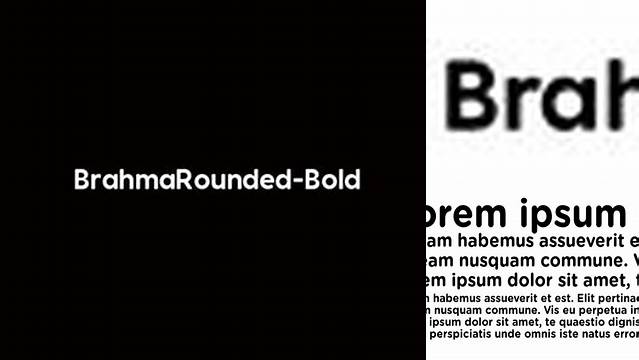
Understanding the Brahma Rounded Semi Bold Font
Alright guys, let's dive into the world of typography and talk about a font that's been making waves: the Brahma Rounded Semi Bold. You've probably seen it around, maybe on a cool website, a striking poster, or even on some slick branding. This font has this awesome, approachable vibe because of its rounded terminals, but it also packs a punch with its semi-bold weight. It’s that perfect blend of friendly and impactful. Think of it as the font equivalent of a warm handshake followed by a confident nod. It’s not too stuffy, not too flimsy – it hits that sweet spot. When designers are looking for a typeface that can be both legible from a distance and have a distinct personality up close, Brahma Rounded Semi Bold often comes to the rescue. Its semi-bold nature means it stands out without being overly aggressive, making it super versatile for a wide range of applications. Whether you're crafting a blog post, designing a social media graphic, or even working on a print advertisement, this font can bring a unique flavor to your project. It’s the kind of font that doesn't just fill space; it actively contributes to the message and the overall aesthetic. So, understanding its characteristics – the smooth curves, the balanced weight, and the overall modern yet friendly feel – is the first step to unlocking its full potential. It’s more than just letters; it’s a design tool that communicates a specific feeling and tone. Many fonts try to be everything to everyone, but Brahma Rounded Semi Bold seems to have a clear identity, and that’s what makes it so appealing. It’s the go-to for when you need something that feels contemporary, clear, and has just the right amount of character to make your design memorable. This font isn't just a pretty face; it's a workhorse that can handle a lot of different design challenges with grace and style. It’s a testament to how thoughtful font design can elevate an entire project, making it feel more polished and professional.
Why Choose Brahma Rounded Semi Bold?
So, why would you specifically go for the Brahma Rounded Semi Bold font, you ask? Well, the biggest draw is its fantastic versatility. This isn't a font that's limited to just one niche. Its semi-bold weight strikes that perfect balance between readability and impact. It’s bold enough to grab attention in headings and subheadings, but it’s not so heavy that it becomes a slog to read in longer blocks of text. Plus, those rounded edges? They give it a modern, friendly, and approachable feel. This makes it ideal for brands that want to convey a sense of warmth and accessibility, but still want to appear professional and contemporary. Think startups, tech companies, lifestyle blogs, or even food brands. It avoids the harshness that some sharper fonts can convey, making it feel more inviting. Moreover, in today's digital landscape, fonts need to perform well across various screen sizes and resolutions. Brahma Rounded Semi Bold generally holds up really well, maintaining its clarity and visual appeal whether it’s on a giant desktop monitor or a tiny smartphone screen. It's also a great choice if you're looking to create a cohesive brand identity. You can use it for your logo, website, marketing materials, and social media, ensuring a consistent visual language. The semi-bold weight also works beautifully when paired with other fonts. It can act as a strong anchor in a typographic hierarchy, complementing lighter weights for body text or more decorative fonts for accents. The subtle roundness also adds a touch of softness, which can be really beneficial in designs that might otherwise feel too rigid or corporate. It's the kind of font that makes your content look good and feel good. It's like finding that perfect outfit that's both comfortable and stylish – it just works. So, if you're aiming for a design that's modern, legible, friendly, and impactful, Brahma Rounded Semi Bold is definitely a contender worth considering for its sheer adaptability and aesthetic appeal. It’s the Swiss Army knife of fonts, in a good way!